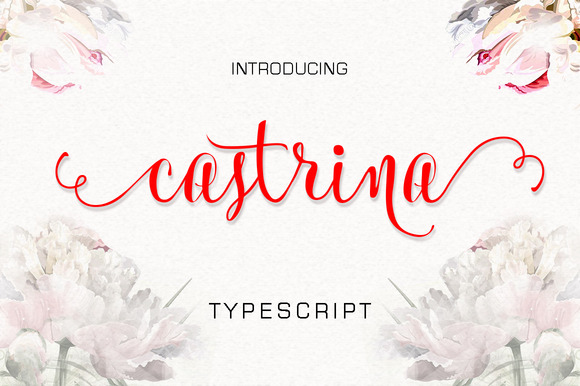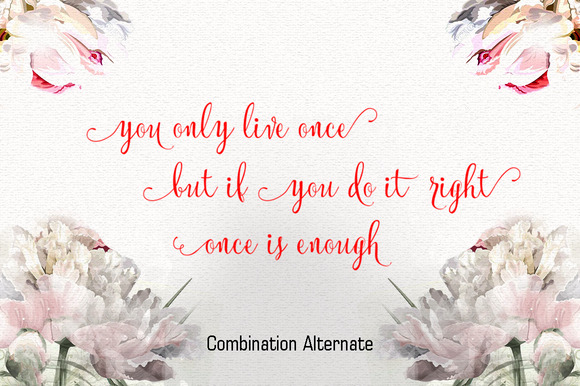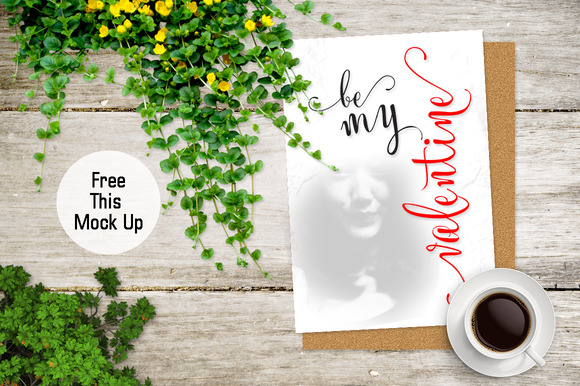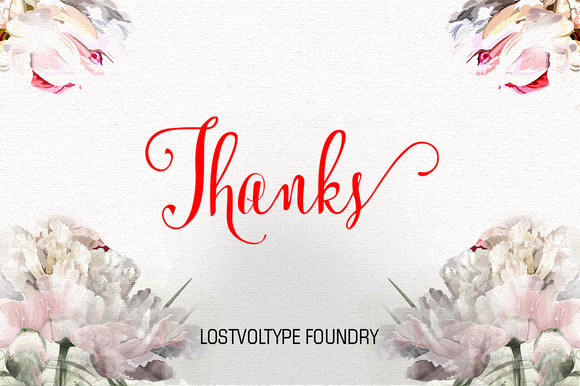
Castrina Font
About Castrina Font
Castrina is a beautiful handwritten script font that has been hand-drawn, scanned, and digitized for you to enjoy. It can be used for various purposes such as headings, logos, invitations, t-shirt designs, greeting cards, posters, labels, book covers, brochures, and much more!